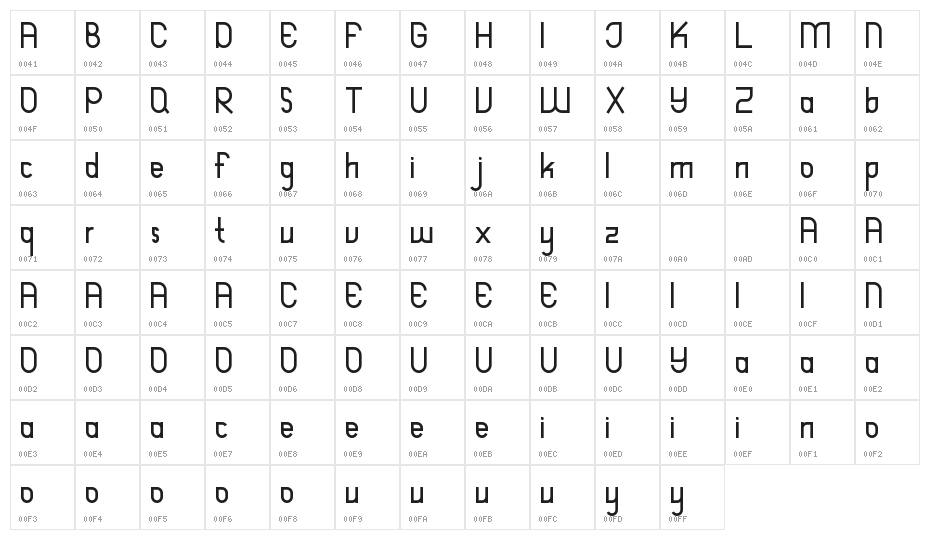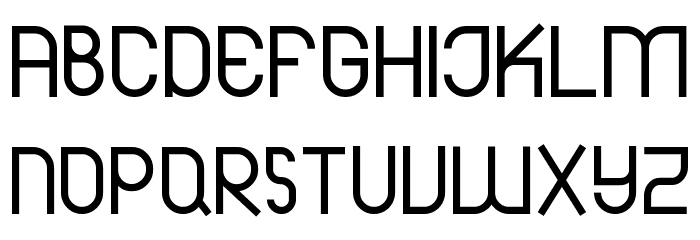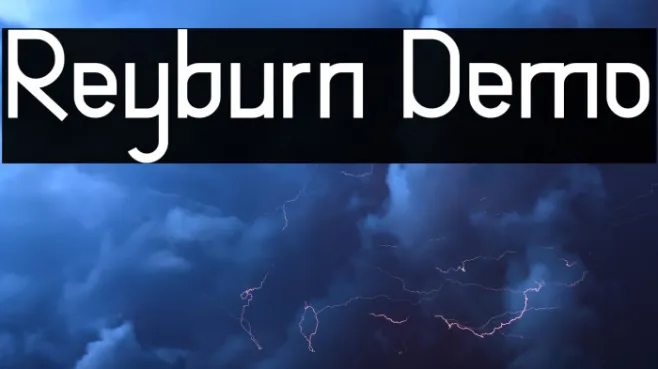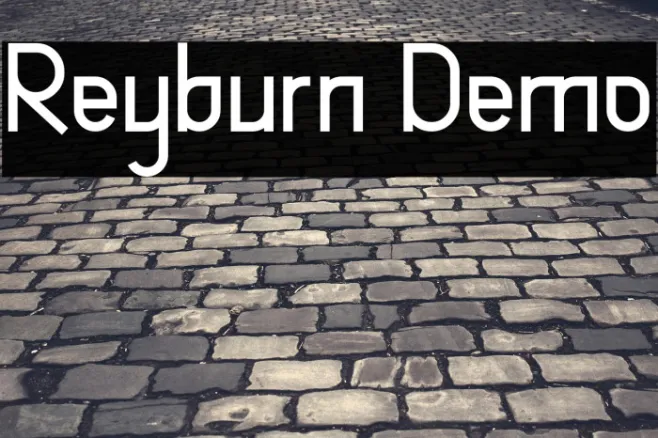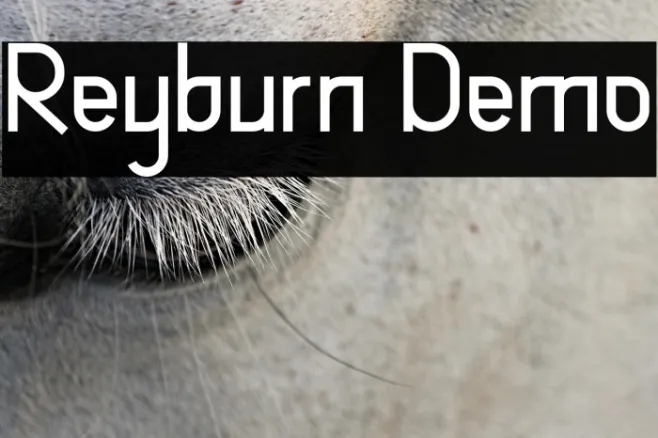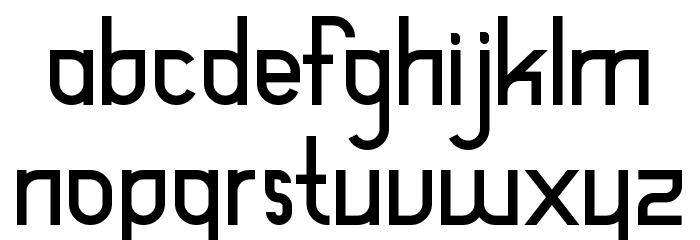
Reyburn Demo Font
Reyburn Demo Description
This font features a geometric and modern design with a unique blend of straight lines and subtle curves. The uppercase letters are bold and structured, giving a sense of stability and strength. The lowercase letters maintain a consistent style, with a slightly softer appearance due to their rounded edges. The numerals and special characters are designed to match the overall aesthetic, providing a cohesive look across all glyphs. The font's clean lines and contemporary feel make it suitable for a variety of design applications.
| Proposed Projects | Ideal for branding, advertising, and digital media projects that require a modern and clean aesthetic. |